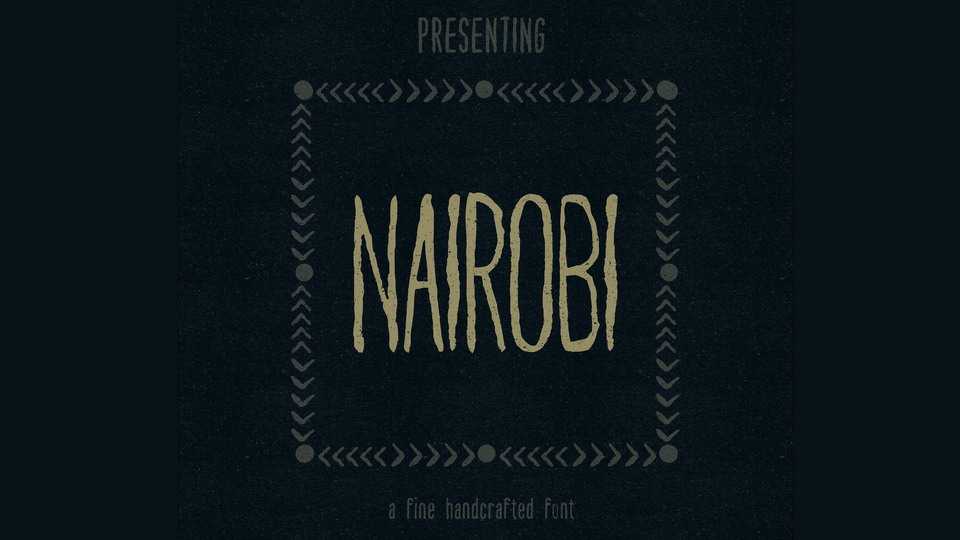
Download Nairobi font, an authentic handmade typeface designed as part of an illustrative project on endangered species. Nairobi is sketched by hand before finishing on the computer to keep the handmade impressions.
Designer: Antonio Rodrigues Jr